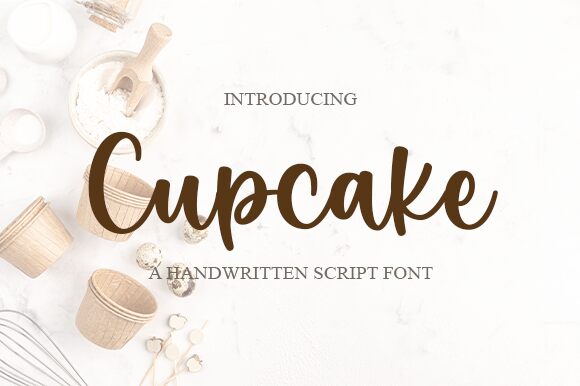
Cupcake
Cupcake, the deliciously sweet handwritten font from Graphix Line Studio, is a versatile and playful addition to any designer's toolkit. With its semi-bold weight and charmingly quirky style, Cupcake is perfect for creating eye-catching headlines or adding a touch of whimsy to branding materials. Whether you're designing a bakery's menu or crafting invitations for a child's birthday party, Cupcake is sure to add a delightful touch to your project. So go ahead and indulge - use Cupcake for your next design project and watch it come to life with a dash of sweetness!